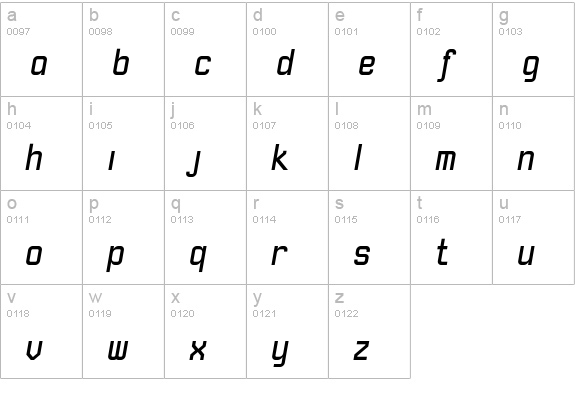
RobustICG-Italic Font Details
RobustICG-Italic is a distinctive, italic variant in the RobustICG typeface family \xE2\x80\x94 well suited to design and typography projects.
Introducing RobustICG-Italic font - a sleek and modern typeface designed to make your text stand out with elegance and sophistication. The italicized form adds a touch of flair and style to any project, whether it's for print or digital use. RobustICG-Italic font is perfect for creating eye-catching headings, signage, logos, and more. Its robust design ensures legibility and readability across various platforms and sizes. The clean lines and distinctive curves of this font make it a versatile choice for both professional and creative applications. The best part? RobustICG-Italic font is completely free to download at FontsMarket.com, making it accessible to anyone looking to elevate their design projects without breaking the bank. Don't miss out on the opportunity to enhance your typography with this exceptional typeface. Download RobustICG-Italic font today and start creating stunning visuals that captivate your audience.